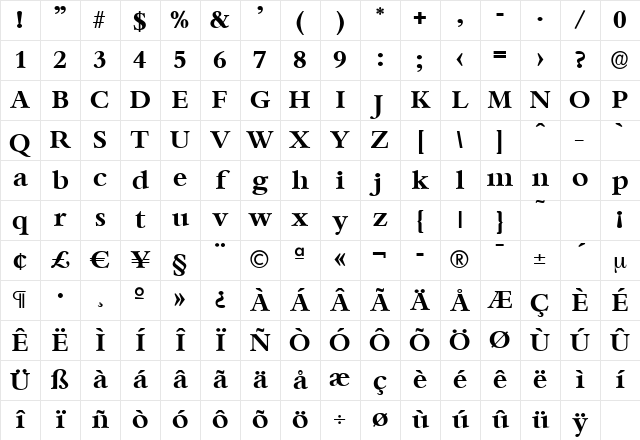
AndrewBecker Bold Free Font
AndrewBecker Bold
AndrewBecker Family
AndrewBecker Bold
Design Context for AndrewBecker
AndrewBecker is a composed and adaptable typeface that performs quietly and consistently across a wide range of design contexts. Its bold stroke weight gives it real presence on the page.
Pro Tip: Use AndrewBecker in both headline and body roles to test its range before committing to a single application.